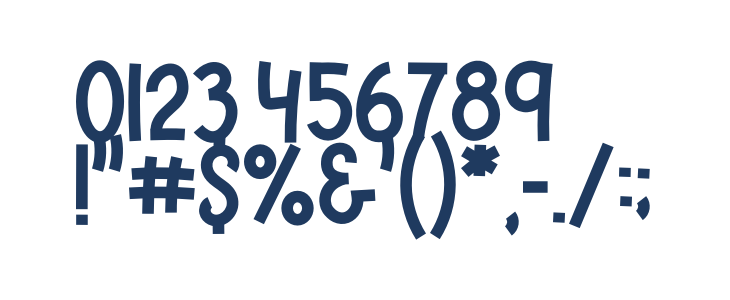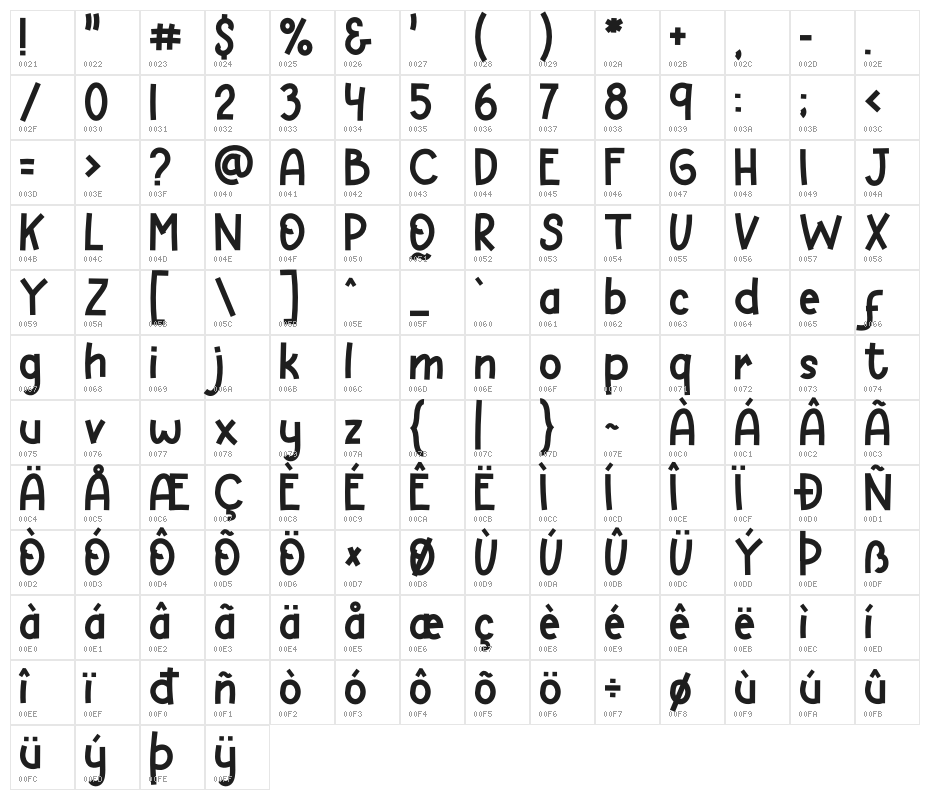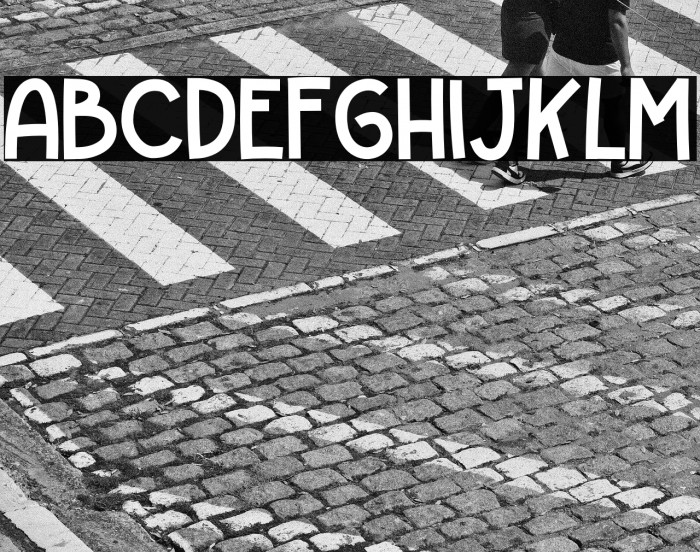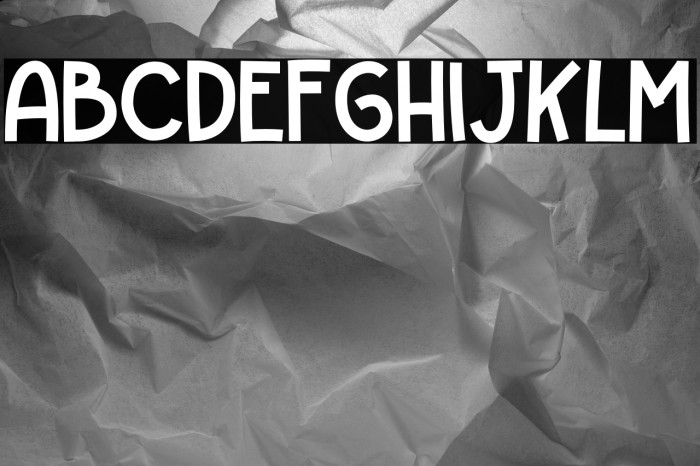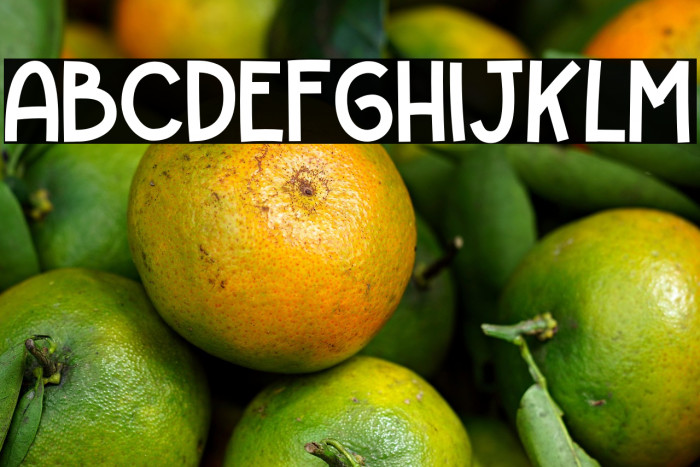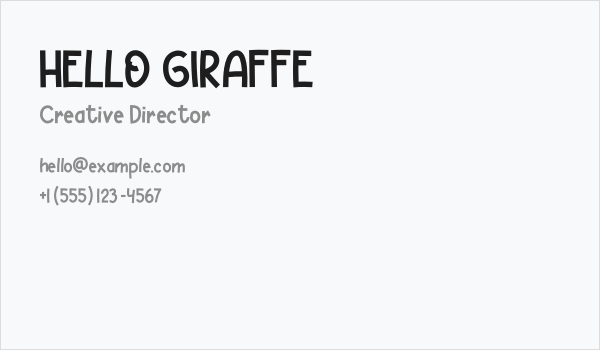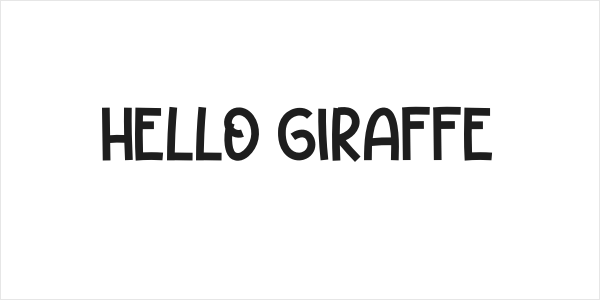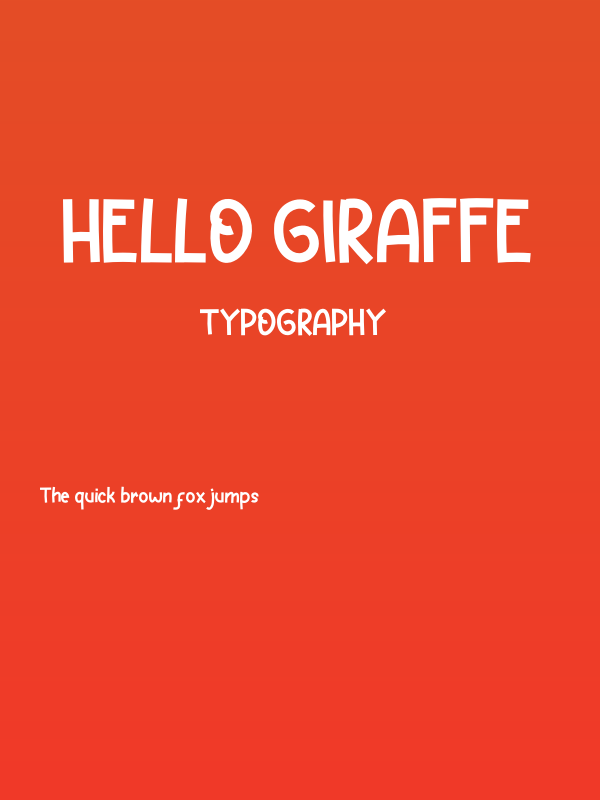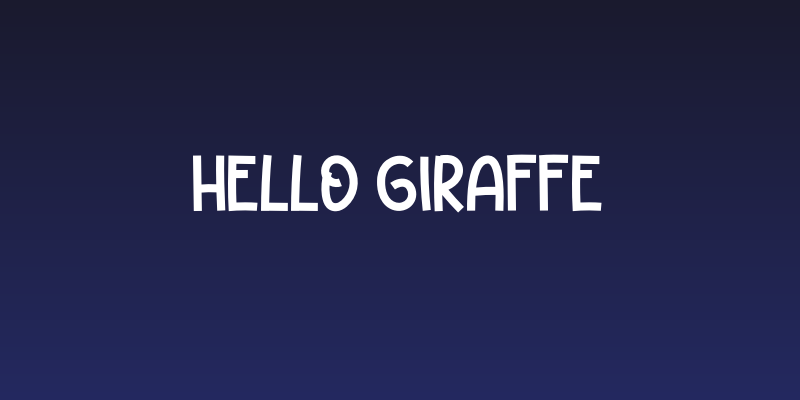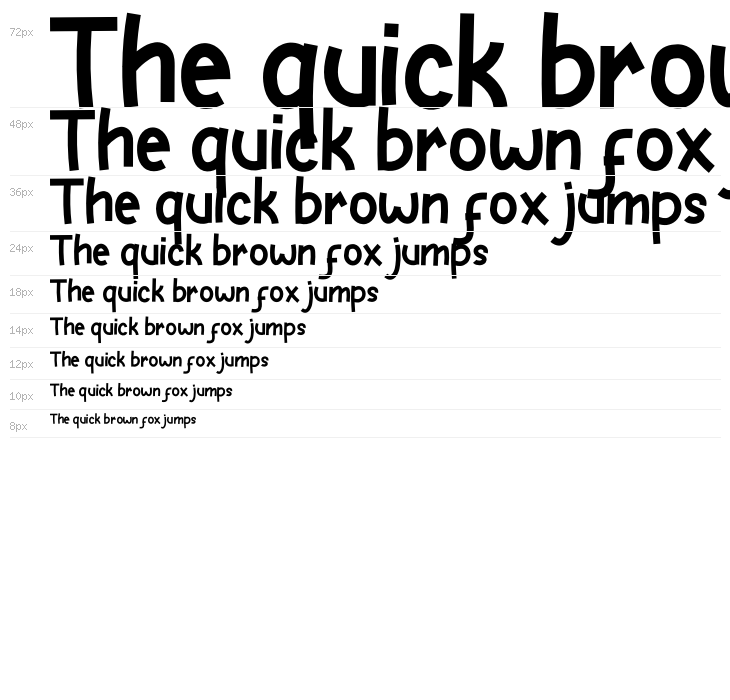
HELLO GIRAFFE Font
HELLO GIRAFFE Description
This playful and bold font features a hand-drawn, cartoonish style with a whimsical touch. The characters are slightly irregular, giving it a lively and informal appearance. The uppercase letters are tall and narrow, while the lowercase letters maintain a consistent height, adding to the font's quirky charm. The numbers and special characters follow the same playful design, making it suitable for creative and fun projects. The overall look is casual and friendly, perfect for capturing attention in a lighthearted manner.
| Overall Style | Playful, Whimsical, Cartoonish |
| Proposed Projects | Ideal for children's books, playful branding, comic strips, and creative posters. |